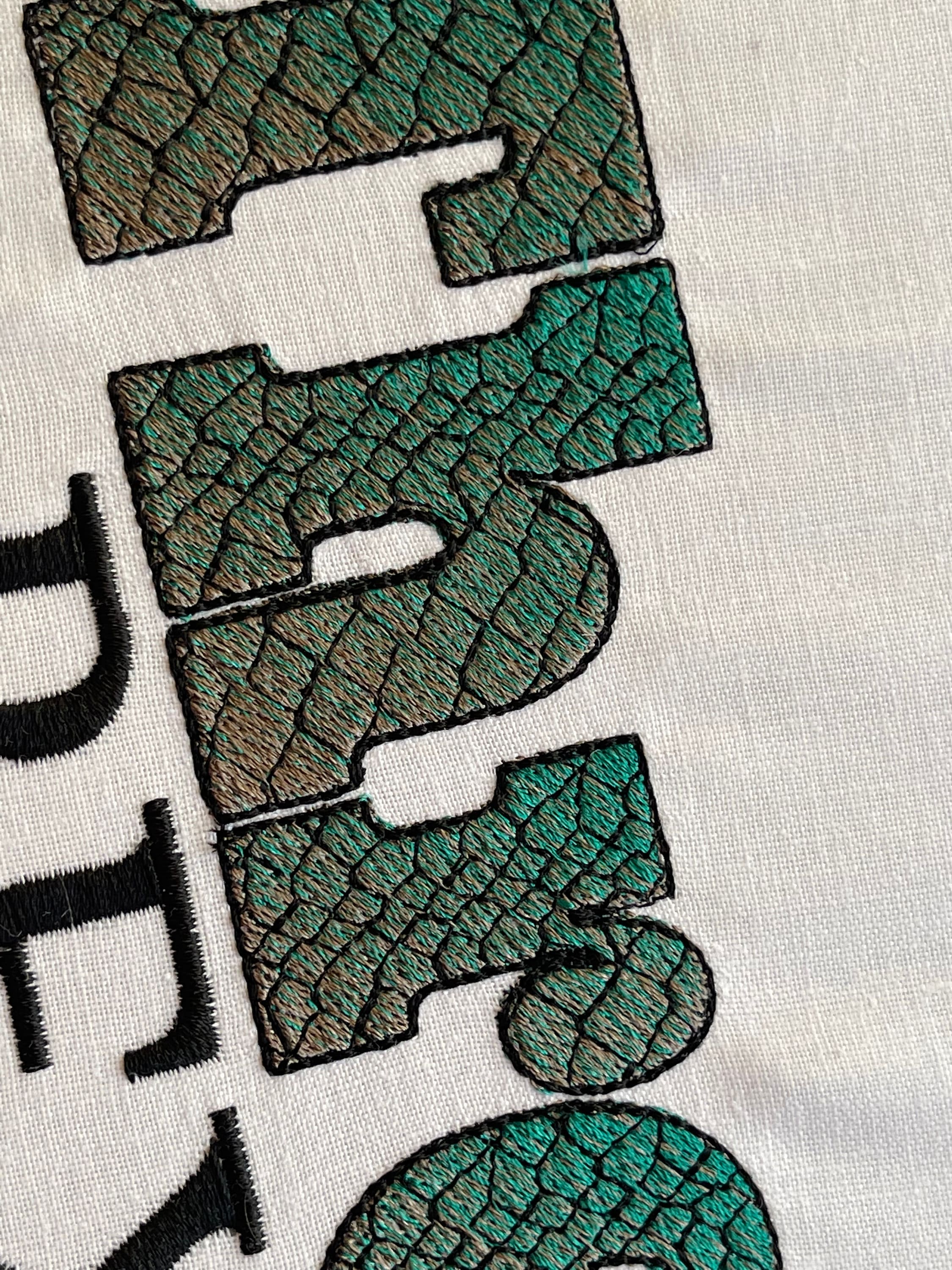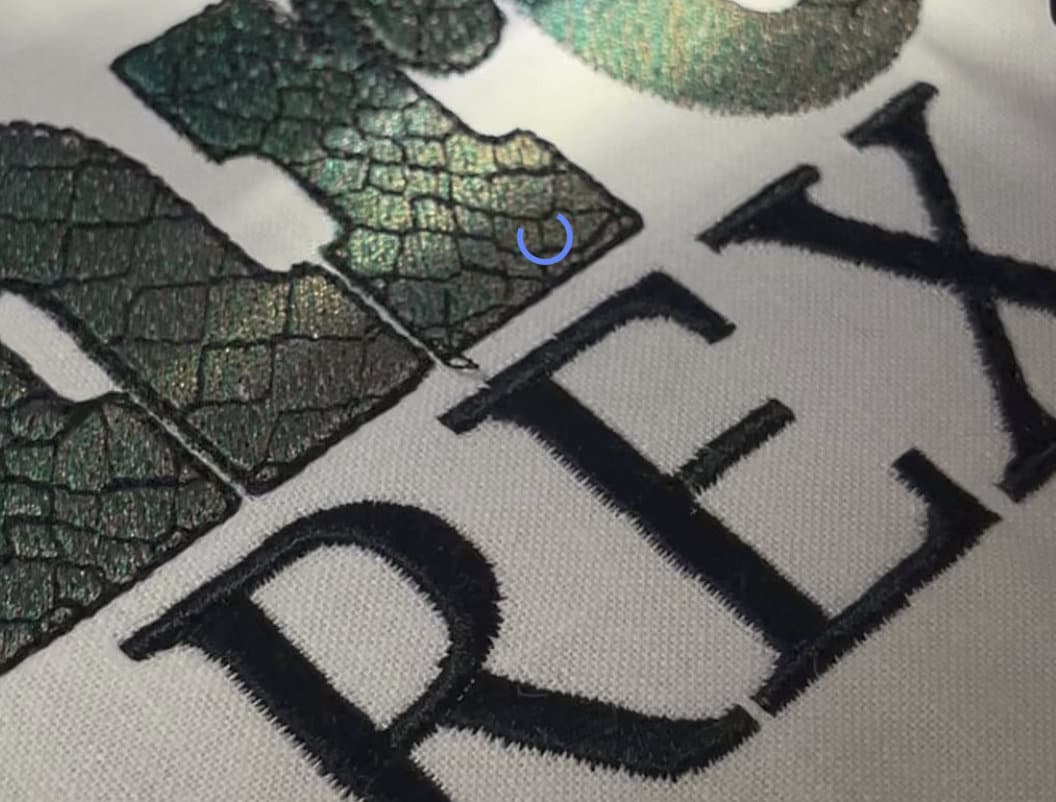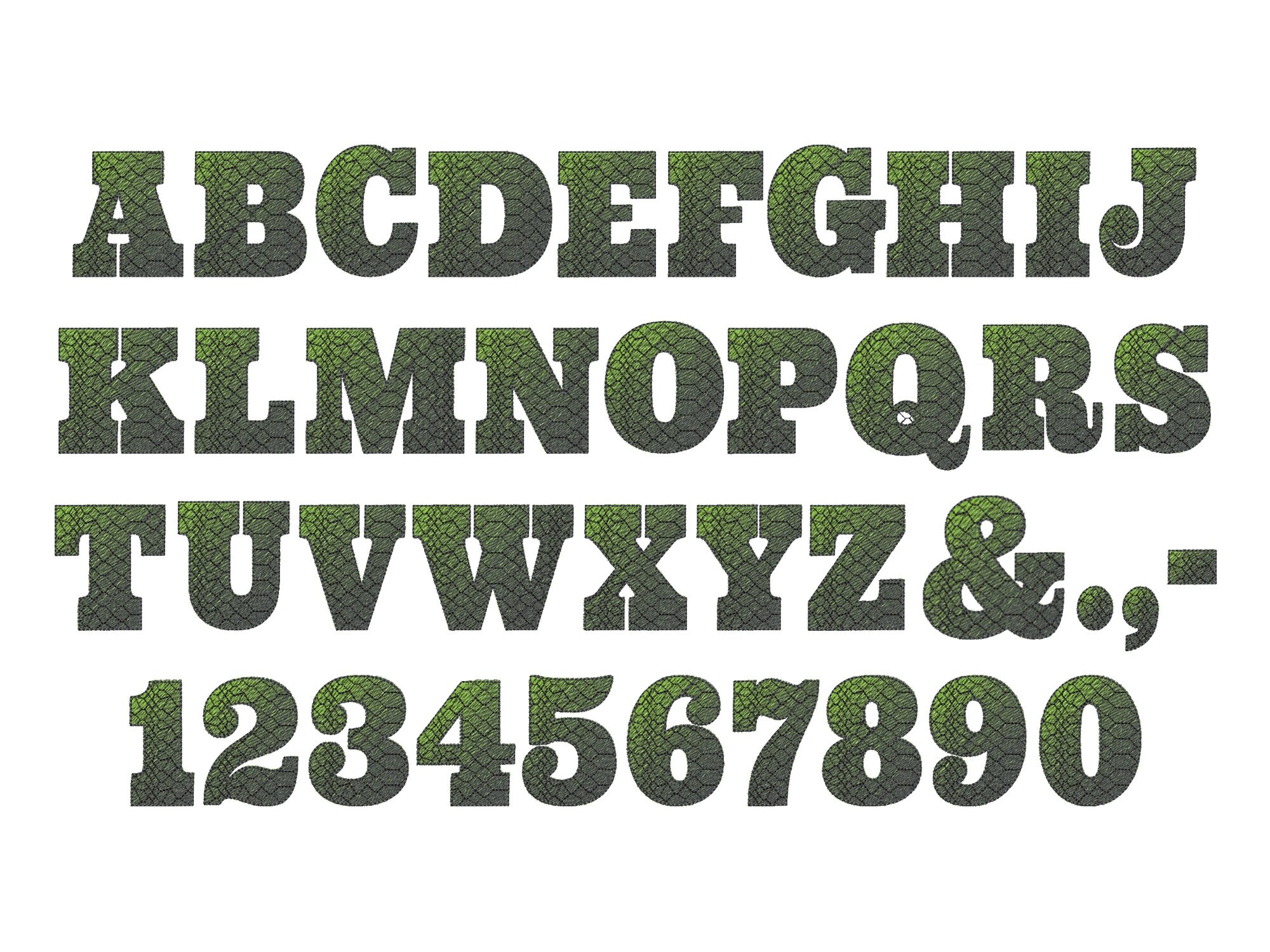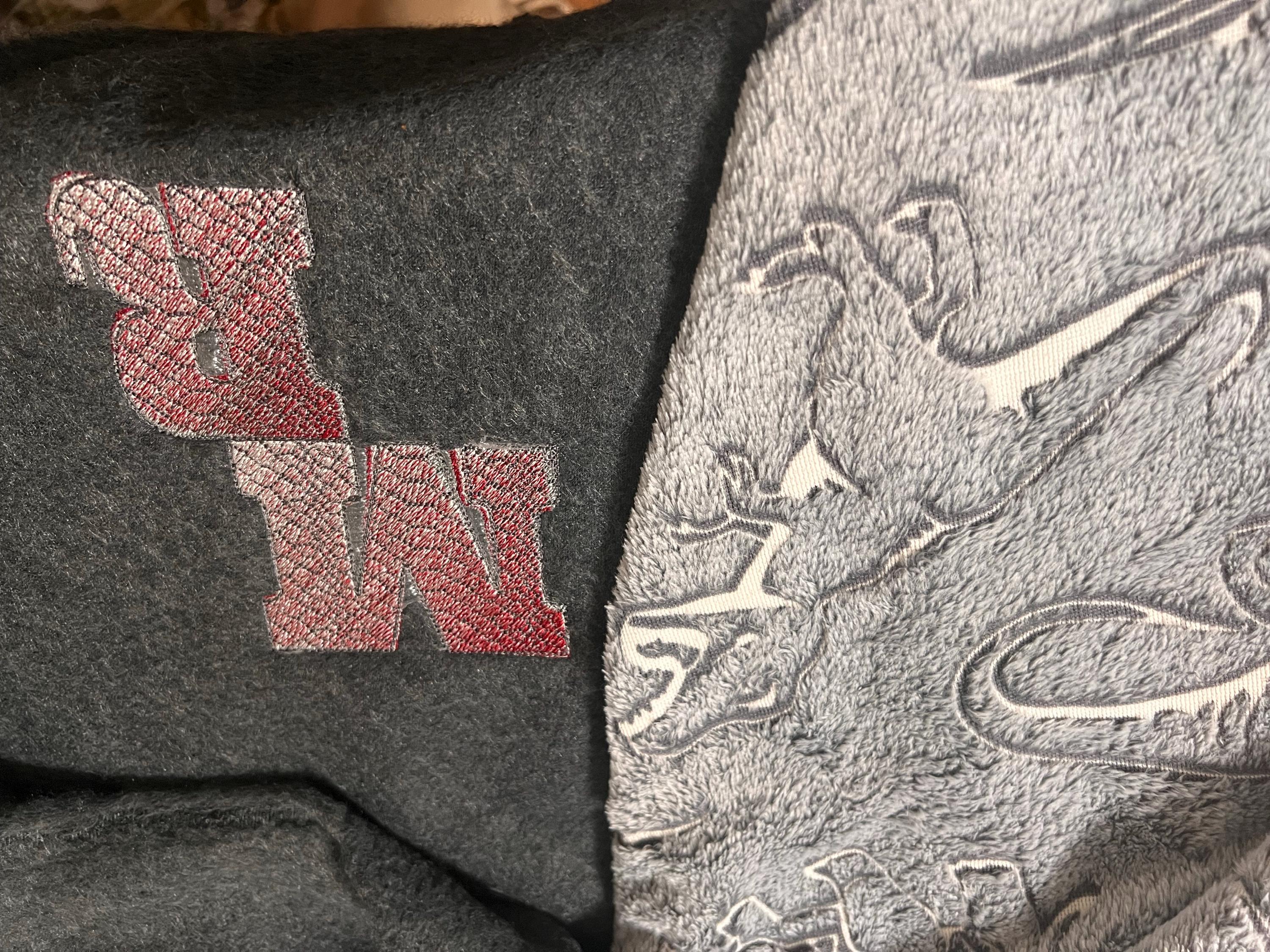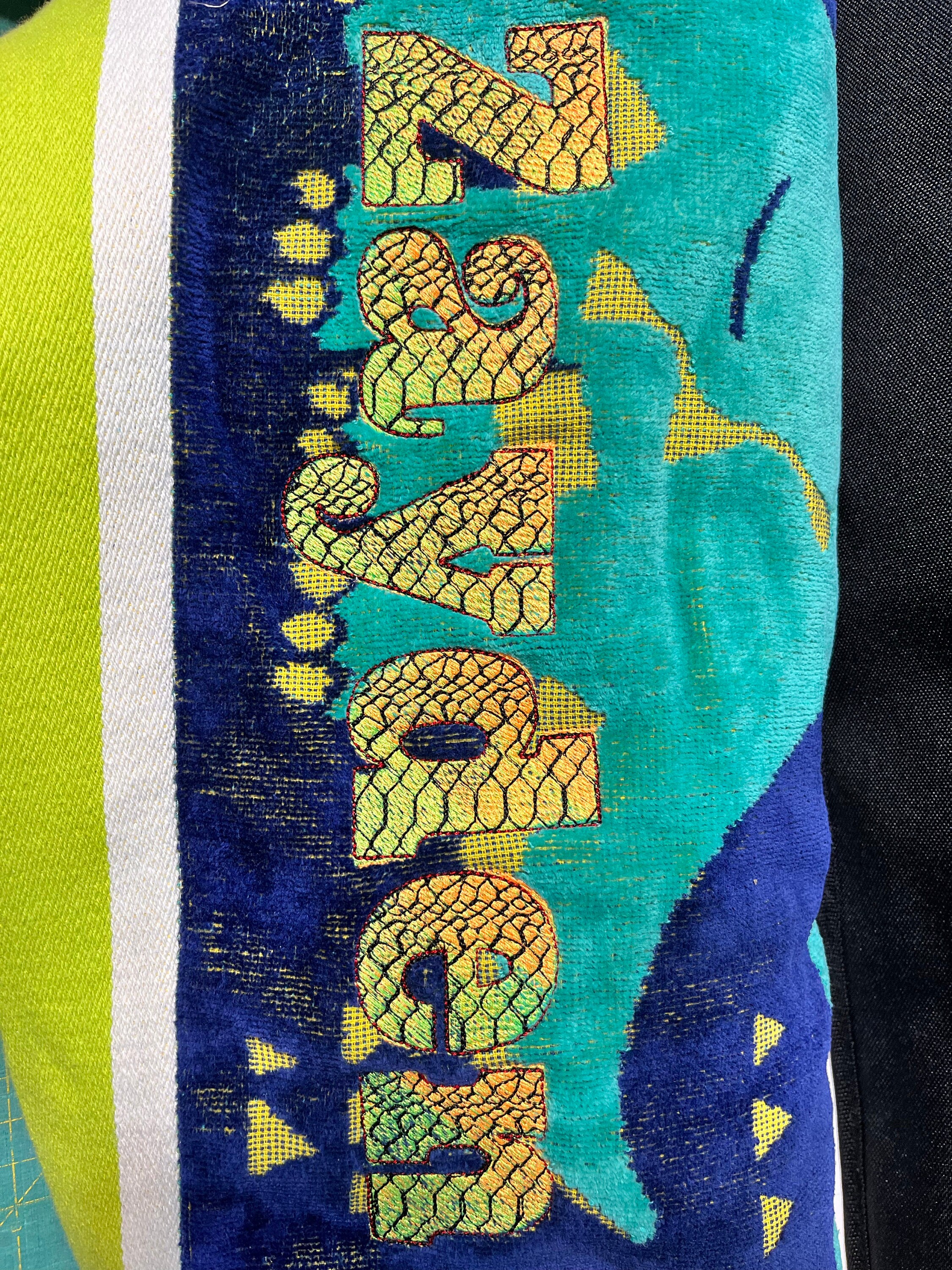
T-rex Rex gradient ombre Font dinosaur skin alphabet fill stitch Jurassic Font kids boys monogram machine embroidery designs 1.5 thru 3.5in
Awesome iridescent effect! No special thread needed.
This is a fill stitch font that has 3 layers:
* the first two layers make the ombre effect, mix green and brown colors and get stunning effects
* the third layer is the skin pattern, which gives the true T-rex look
* and the last one is an outline.
Included uppercase and lowercase letters, numbers 0-9 and punctuation & . , -
Some letters stitch out better than others. So far I found the lower case a & e have some pretty big stitching and also the final stitching around the letters do not match up as well as it should. I even used spray glue and a Tack down stitch on the second towel and it didn’t make a difference.